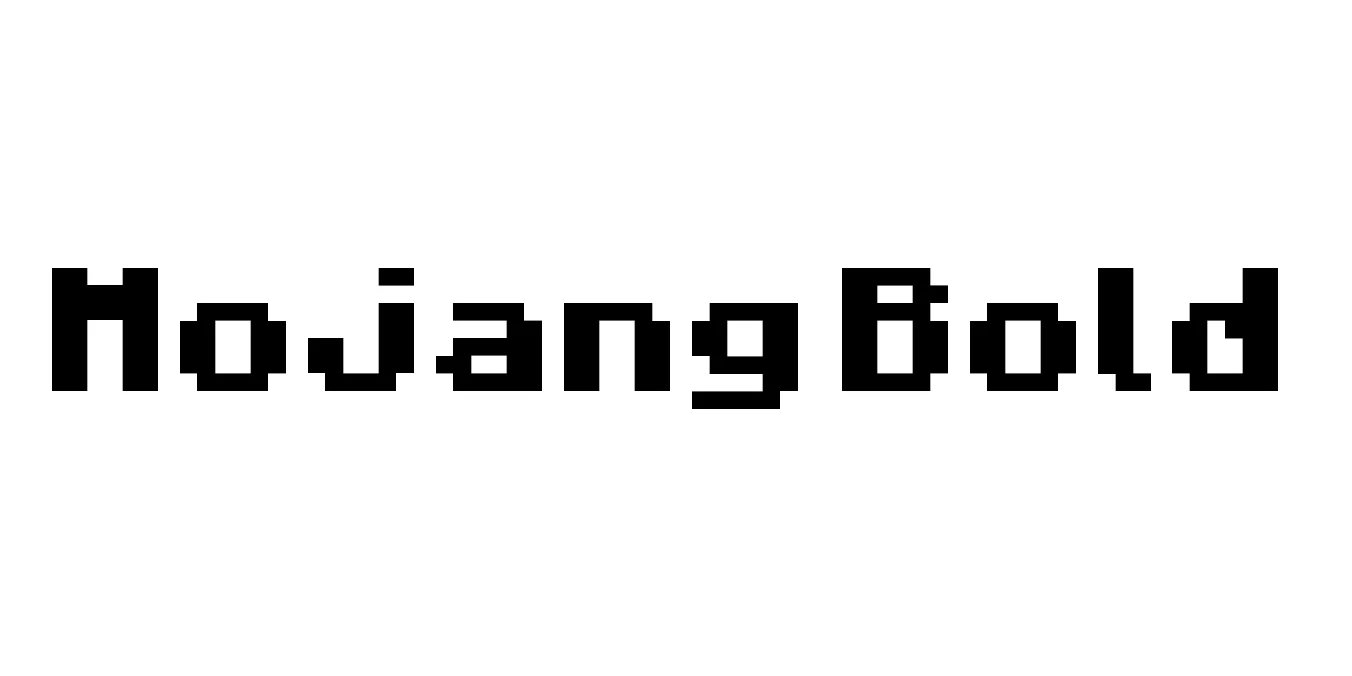
Mojang Bold
Designed by Mojang Studios
Mojang Bold is a pixelated, display typeface originally created for the user interface of the world-renowned sandbox game, Minecraft. Developed by Mojang Studios, the font captures the blocky, 8-bit aesthetic that has become synonymous with the brand. It is primarily used for titles, buttons, and in-game text, providing a nostalgic yet clear reading experience for players across various platforms.
Over the years, the font has moved beyond the game itself, becoming a staple in fan-made content, merchandise, and digital art. Its monospaced characteristics and bold weight make it highly legible even at small sizes, though it shines best when used for creative projects that require a retro-gaming or technical feel. It is often paired with other pixel fonts to create a cohesive thematic look.
Mojang Bold Best Uses
Perfect for in-game menus, HUDs, and title screens in retro or sandbox games.
Ideal for YouTube thumbnails, Twitch overlays, and gaming-related Instagram posts.
Works great for t-shirt designs, stickers, and poster art aimed at gaming communities.
Suitable for headers and buttons on gaming news sites or fan forums.